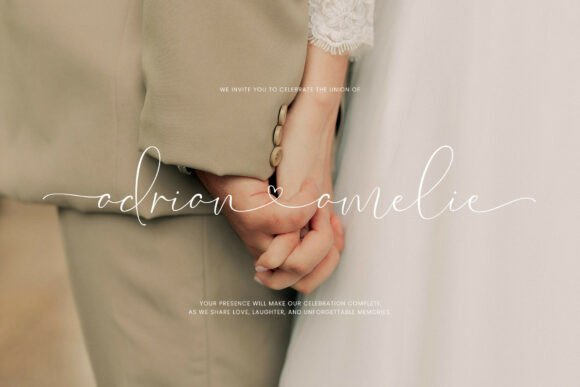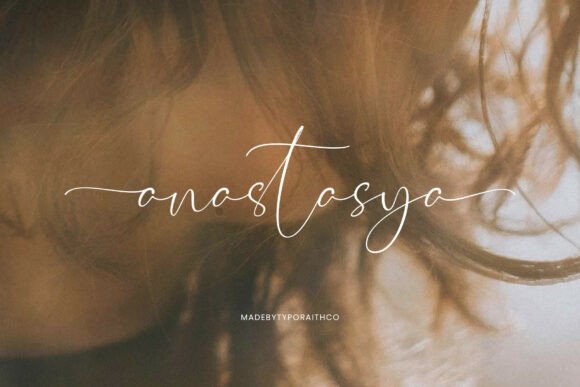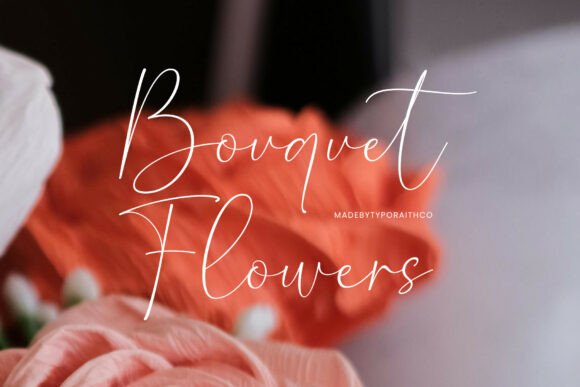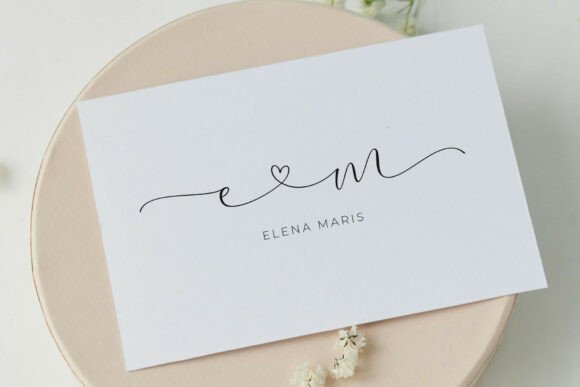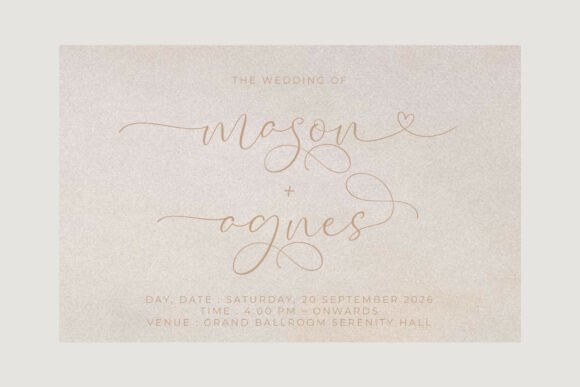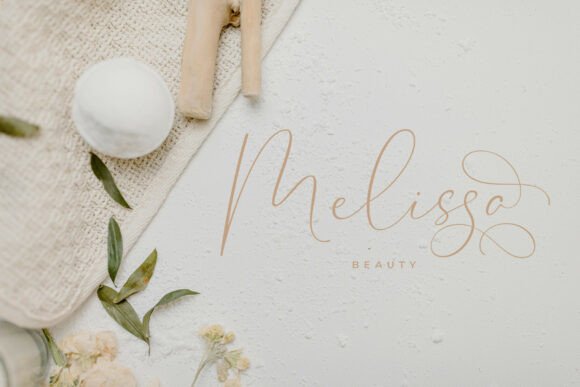
Introduction to Marlotte Font Font
Fonts play a crucial role in design, and the Marlotte Font font is a typeface that brings both character and versatility to any project. Whether you’re working on a branding project, a website, or a print design, the Marlotte Font font offers a unique style that can elevate your work.
Marlotte is a delicate and graceful modern calligraphy script designed to bring softness, elegance, and charm to your creative projects.
With its flowing strokes, refined curves, and natural handwritten feel, Marlotte is perfect for designs that need a romantic and sophisticated touch Whether youβre creating wedding stationery, branding, or social media content, this script font adds warmth and personality while staying beautifully minimal and timeless.
Key Features of Marlotte Font Font
Why Choose Marlotte Font Font?
The Marlotte Font font is more than just a typeface β it’s a design tool that helps you communicate your message with style and clarity. Its unique character set and versatile design make it suitable for a wide range of applications, from elegant invitations to bold headlines.
With its carefully crafted letterforms and balanced proportions, the Marlotte Font font ensures readability and visual appeal across all mediums.
What makes Marlotte Font font special?
The Marlotte Font font stands out with its unique design, exceptional readability, and versatility across various design applications.